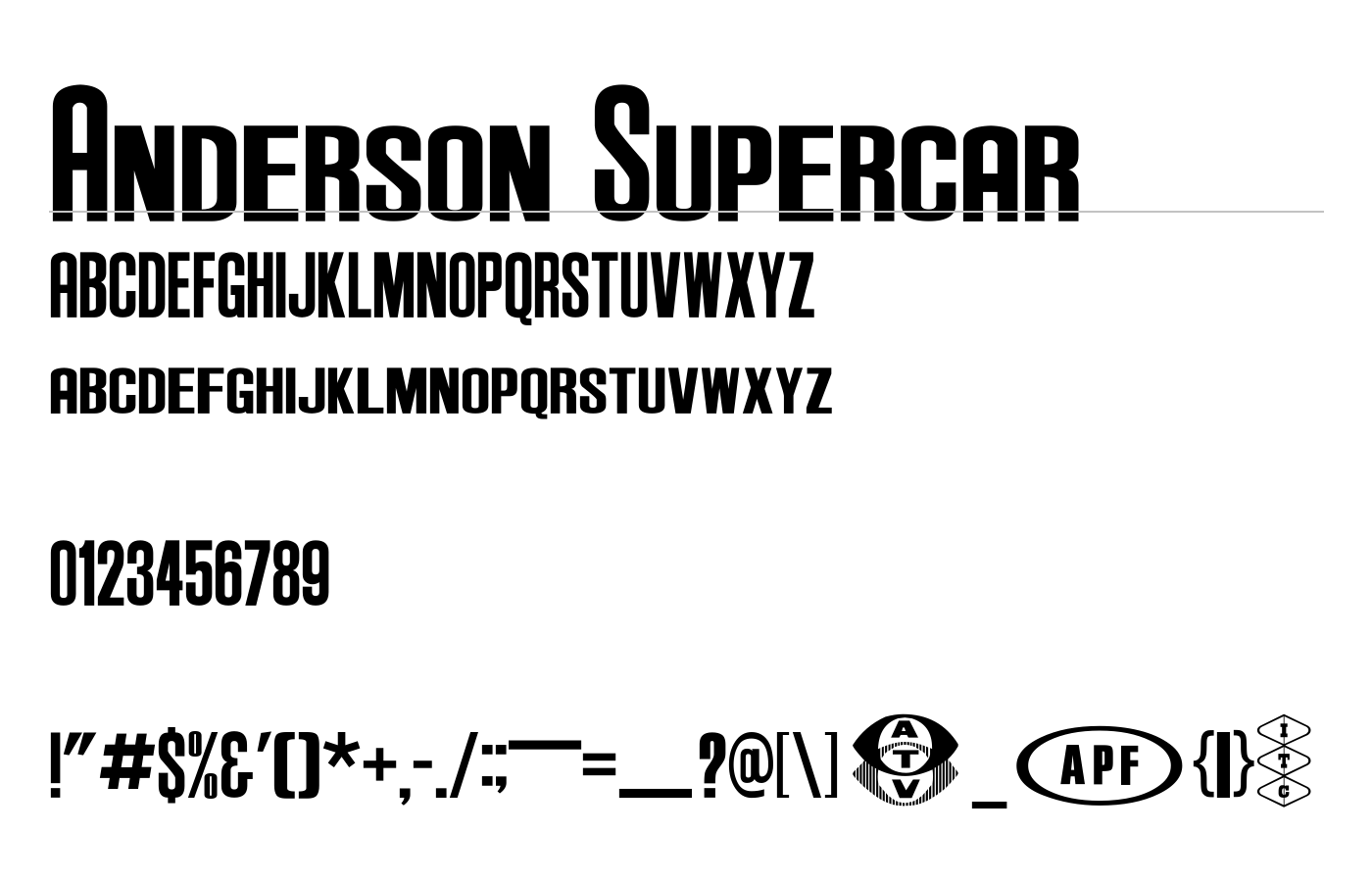
Anderson Supercar is a bold, condensed sans serif font with a strong, industrial feel perfectly suited for modern design projects. Its tall, narrow letterforms and uniform stroke weight create a sleek, powerful appearance, making it ideal for automotive branding, headlines, and logos where impact and legibility are key. This font conveys confidence and speed, aligning well with themes of technology and performance.
Anderson Supercar Font
About Anderson Supercar Font